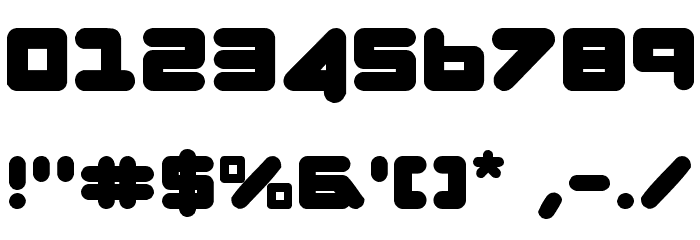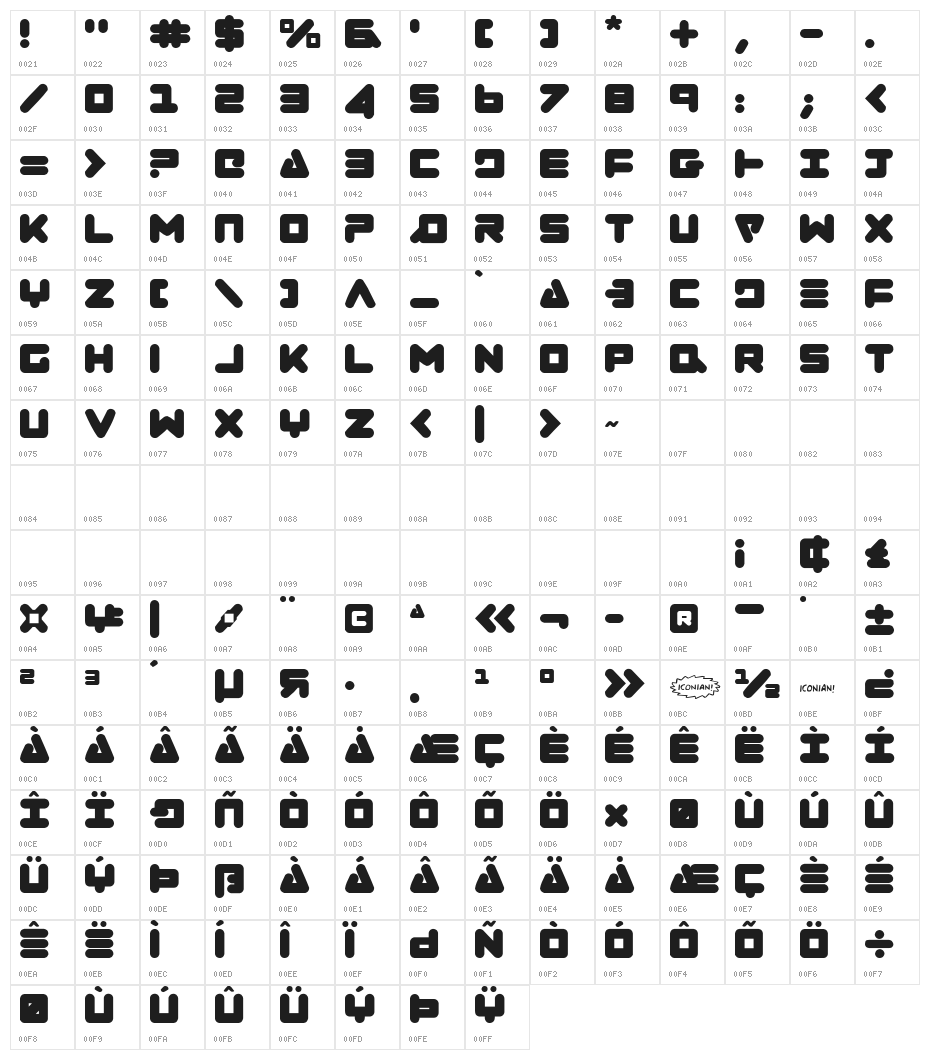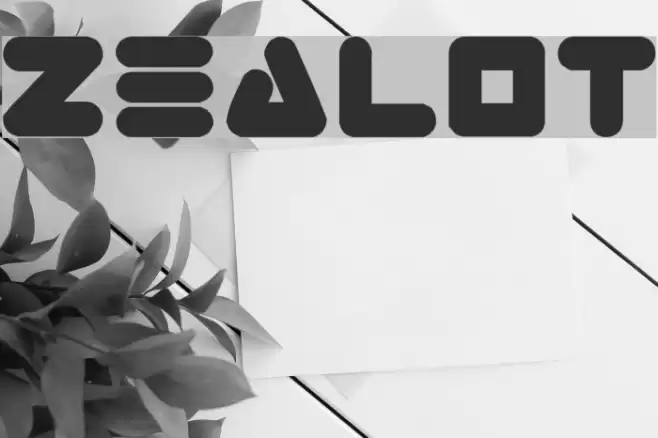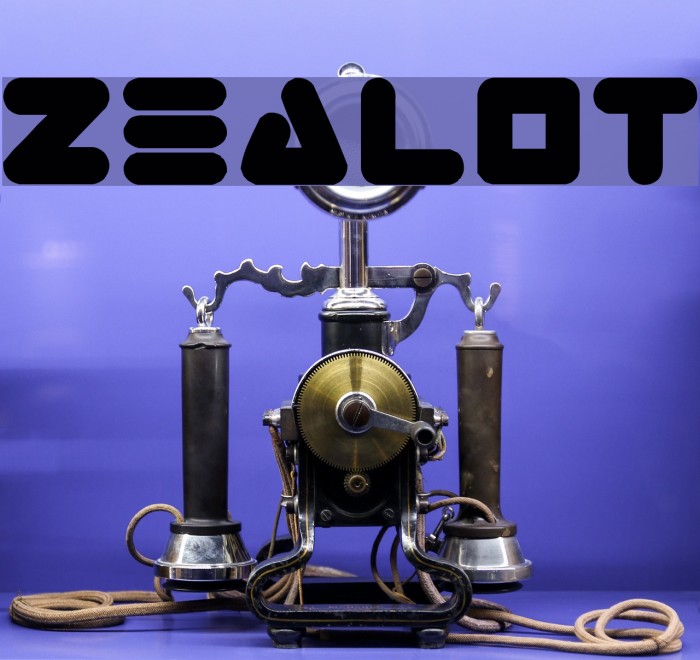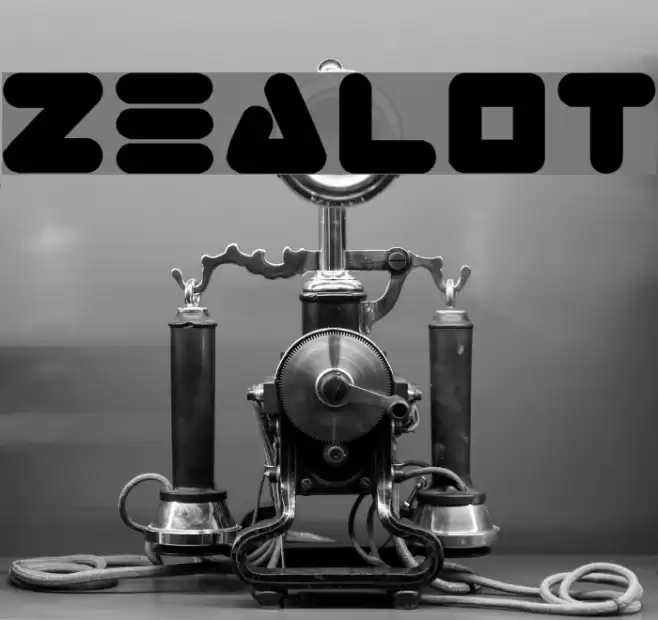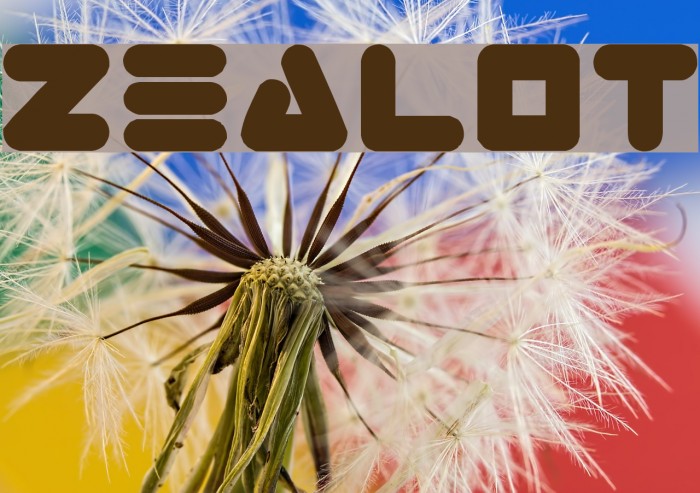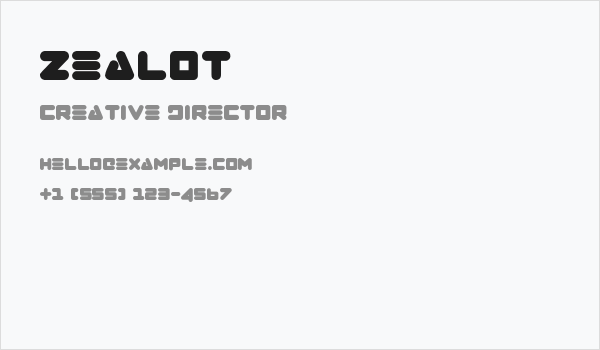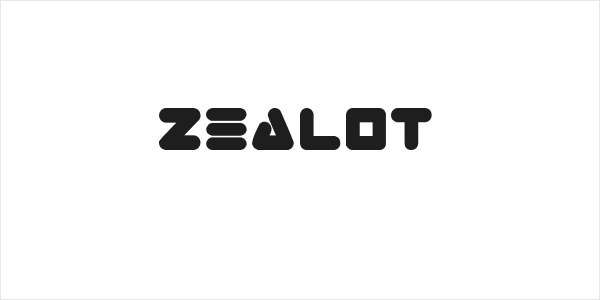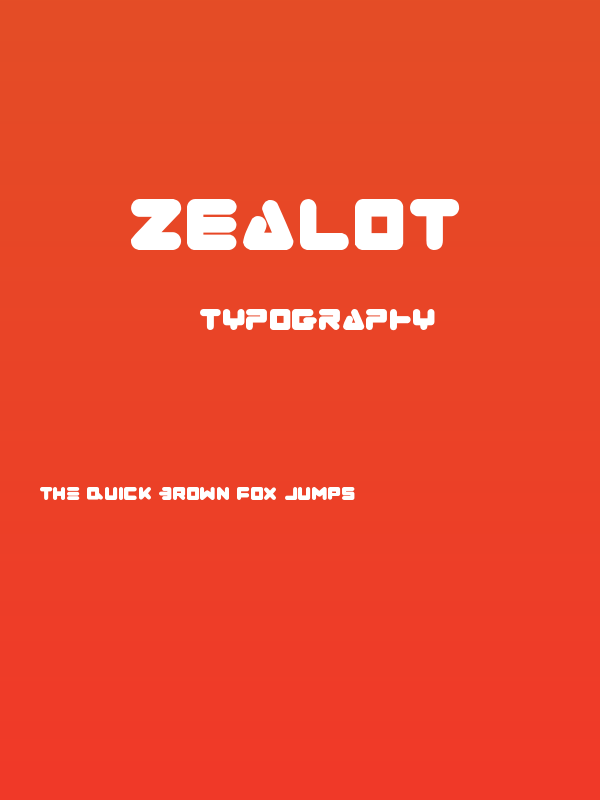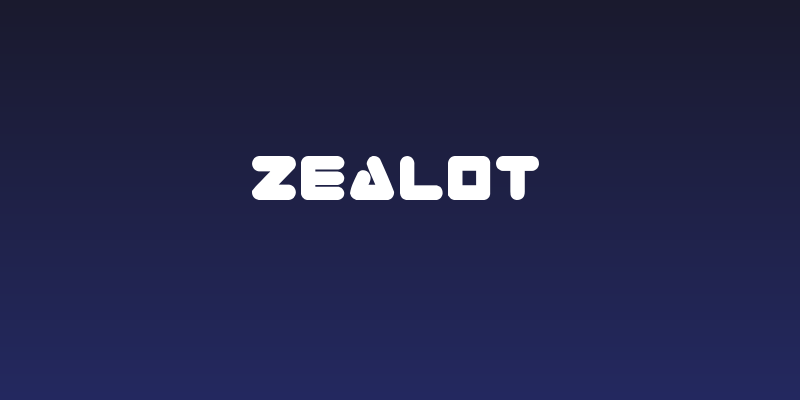
Zealot Font
Zealot Description
This font features a bold and futuristic design with geometric shapes and rounded edges. The characters are blocky and uniform, giving a sense of strength and modernity. The uppercase and lowercase letters maintain a consistent style, with unique cutouts and angles that add a distinctive flair. The numbers and special characters follow the same design principles, ensuring a cohesive look across all glyphs. This font is ideal for projects that require a strong visual impact, such as branding, posters, and digital media.
| Proposed Projects | Ideal for branding, posters, digital media, and any project needing a strong visual impact. |